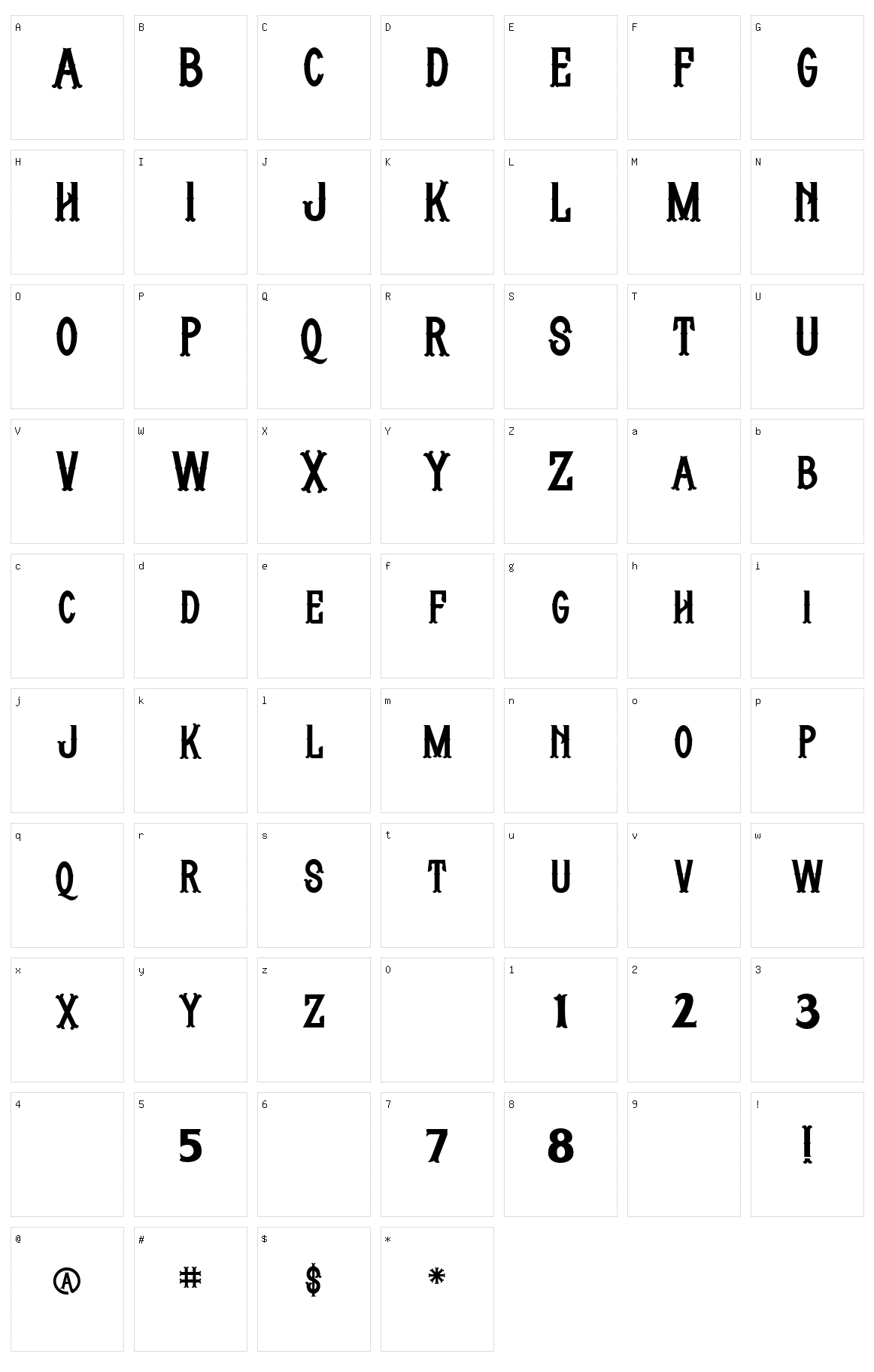
The free font Whisholder is carefully designed by Creatype Studio, showcasing a thoughtful balance of creativity and usability and falls under the Retro font style. When you download the ZIP file, it contains only 21.98 KB of font files, making it lightweight and quick to download. Please review the license details below to understand permitted usage and distribution rights. If license information is not available, we recommend using this font for personal projects only or contacting the author directly for commercial usage permissions.